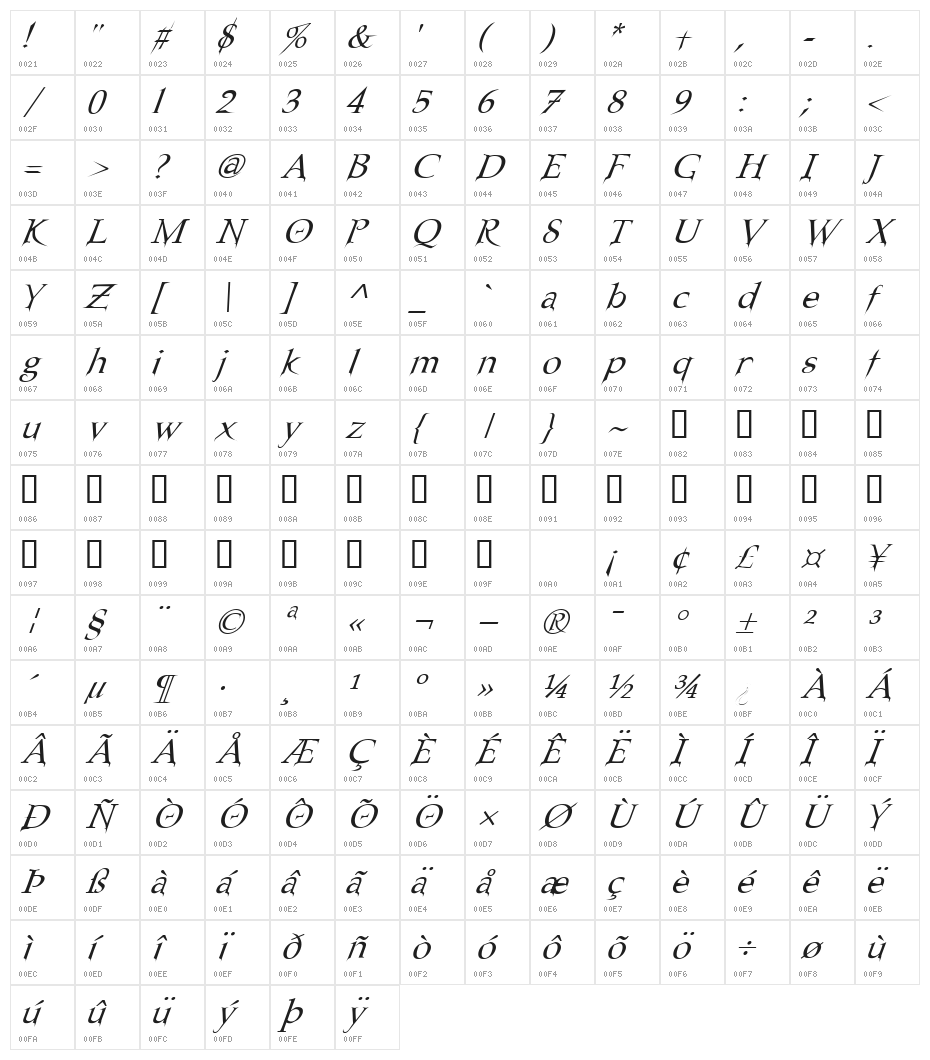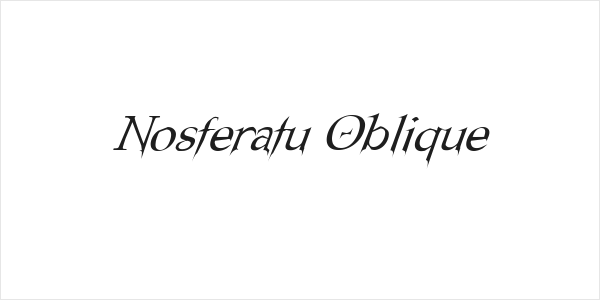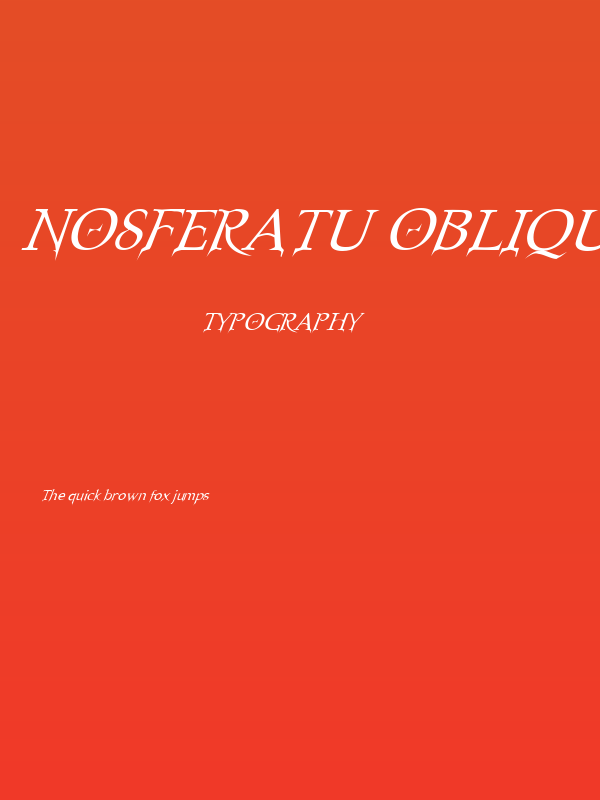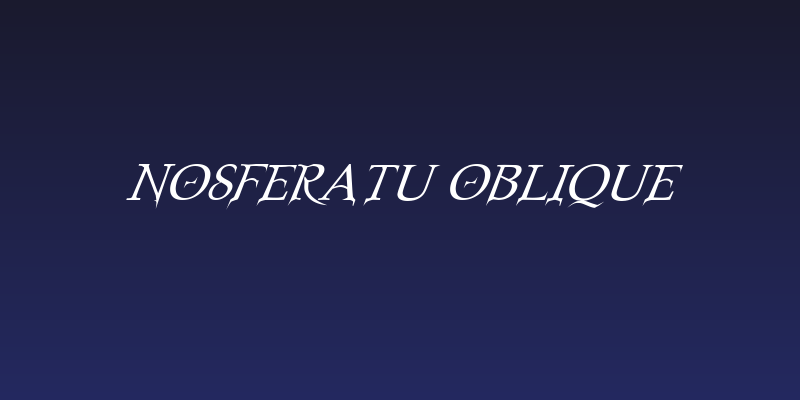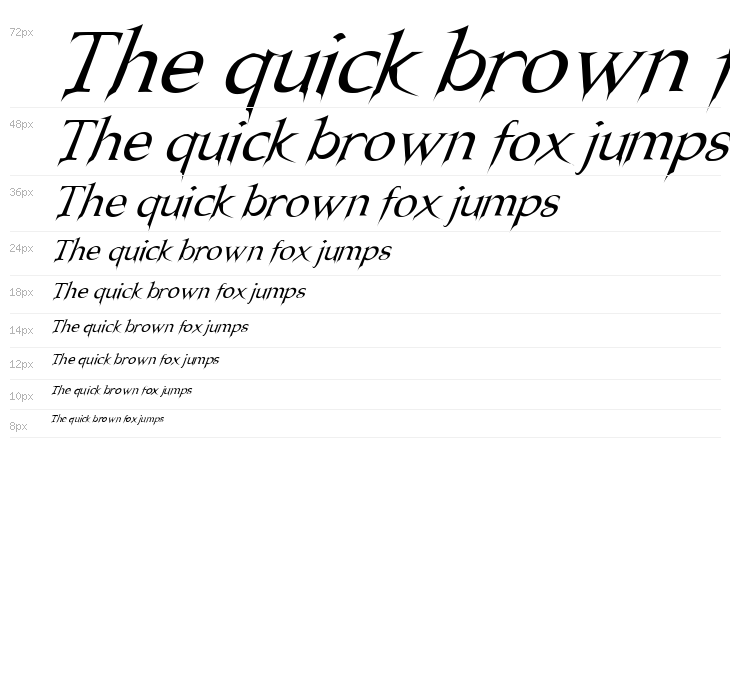
Nosferatu Oblique Font
Nosferatu Oblique Description
This font features a dramatic and sharp design, characterized by its oblique and angular strokes that convey a sense of mystery and elegance. The uppercase letters have a striking presence with elongated serifs and pointed edges, while the lowercase letters maintain a consistent slant, enhancing the font's dynamic appearance. The numerals are equally stylized, with a unique flair that complements the overall aesthetic. Special characters are crafted with the same attention to detail, making them seamlessly integrate with the rest of the typeface. This font's distinctive style is ideal for projects that require a bold and expressive touch.
| Proposed Projects | Ideal for horror-themed posters, gothic book covers, or branding that requires a bold, expressive touch. |